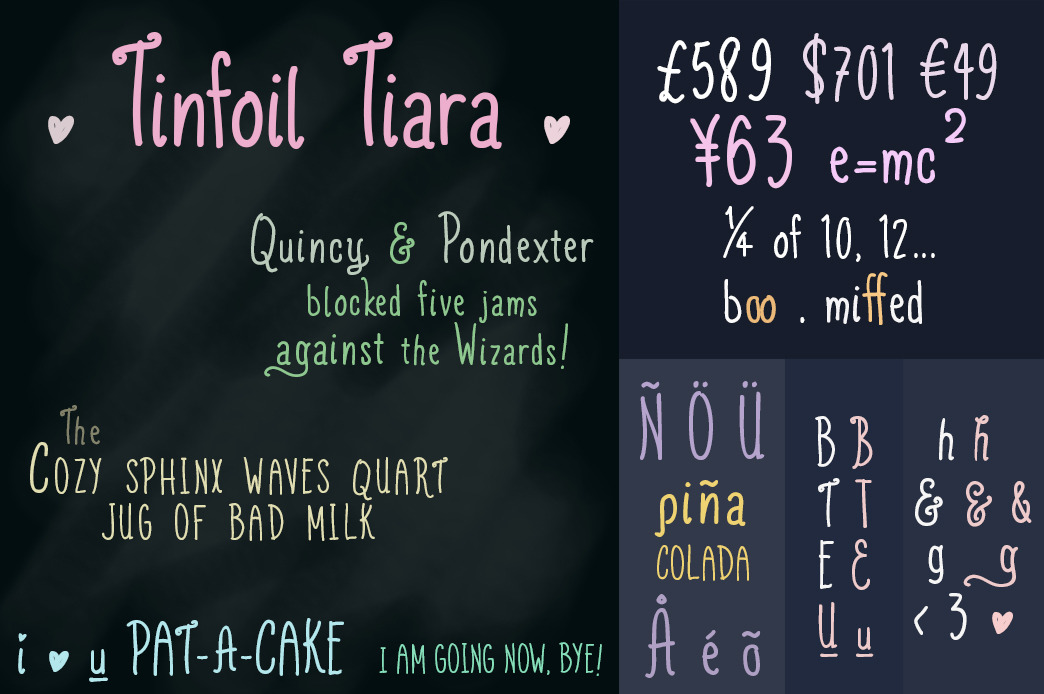
Tinfoil Tiara handwritten font
In the spirit of thin, tall handwritten fonts comes display font Tinfoil Tiara, pretty - yet far from perfect :)
Features (please see graphic): Contextual Alternates (toggle off, on in Photoshop's Character Panel) singular/end characters: y, n, g initial character: h Auto Ligatures: i i w/ a heart dot, U & u underlined, A & I, less than sign & number 3 heart, ff, oo Stylistic Alternates: B, E, T, ampersand (2 alternatives, the other via Swash) Also Includes: $, ¥, £, €, int'l. characters, copyright, registered, trademark symbols, etc.